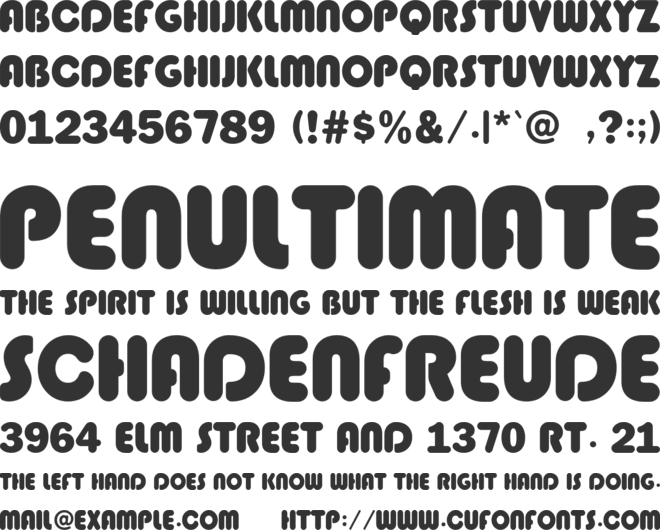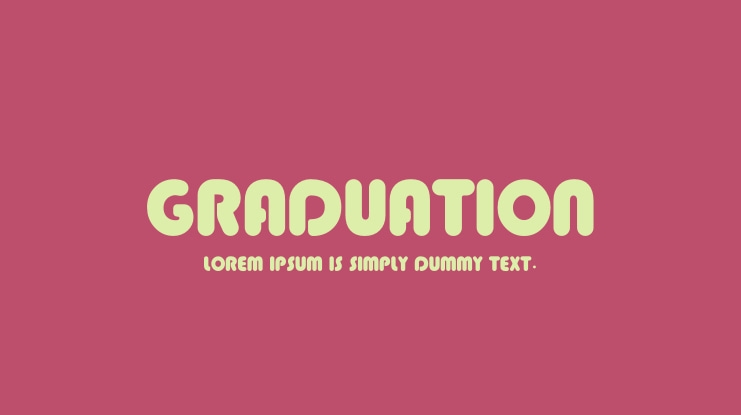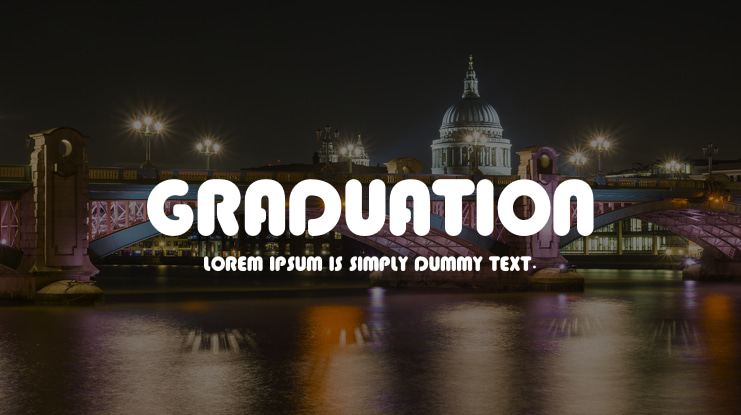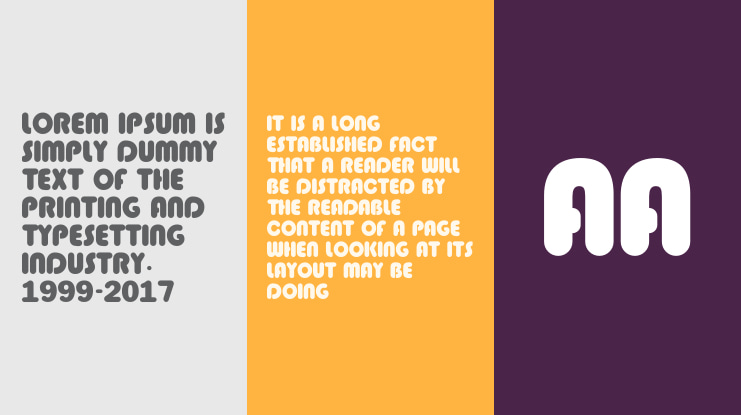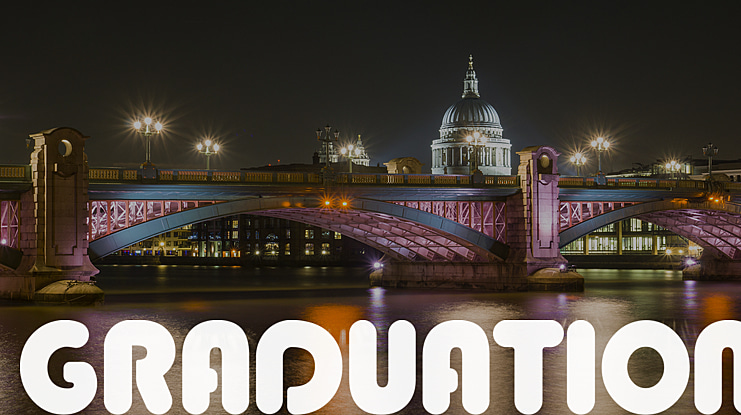
Graduation Font
Miftah Arzaq (arzaqstudio,arzaqcreative)
This is a playful and modern display font. It offer support for all character of the english language. Graduation font is perfectly suited for social media display, graduation display, Cover book and also web. This font is very suitable for use in your favorite applications such as Ms. Word, Adobe Photoshop, Adobe Illustrator, Corel Draw or other applications